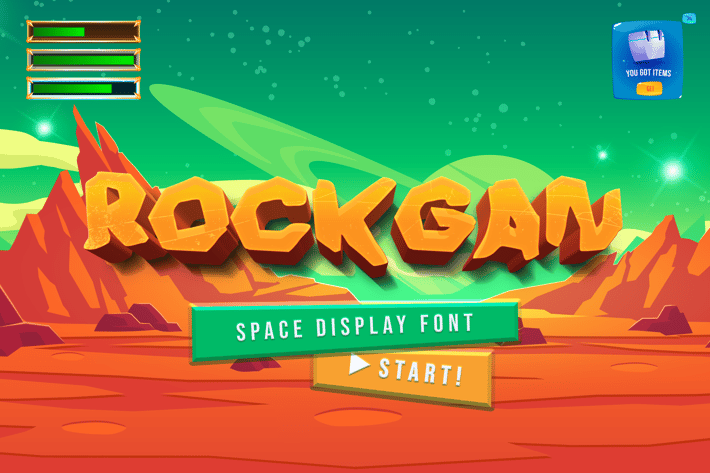
Rockgan Space Game Display Font
Rockgan Space Game Display Font, is our new font and suitable for mockup or any work.
Great for
Sticker, Invitation Card, Brochure, etc.